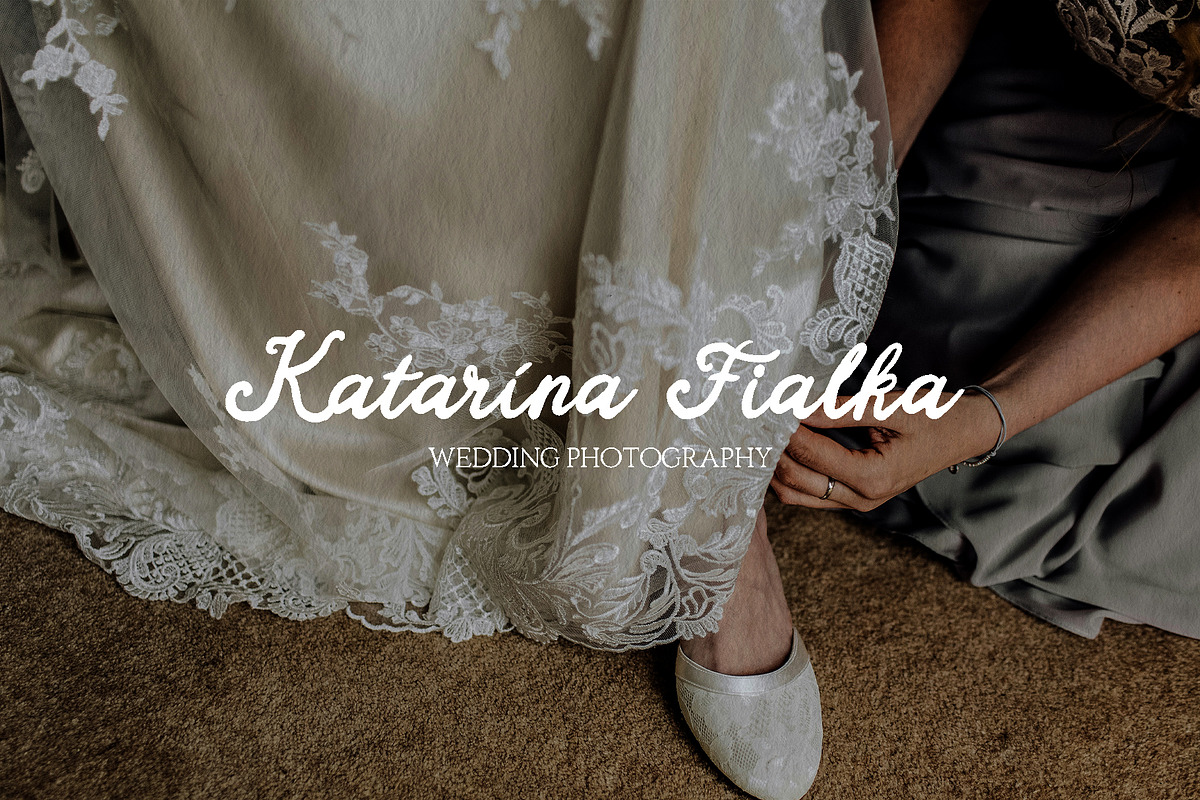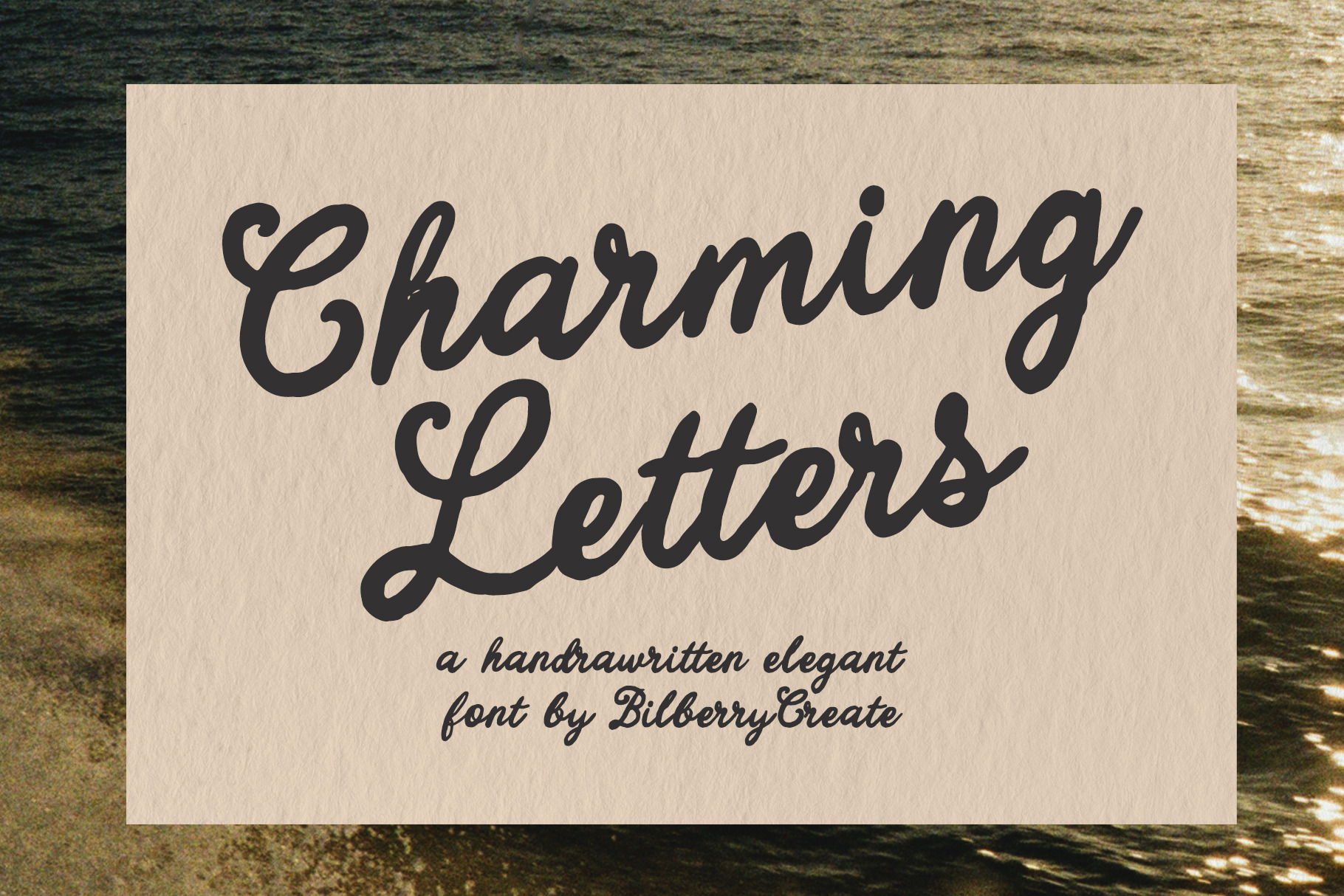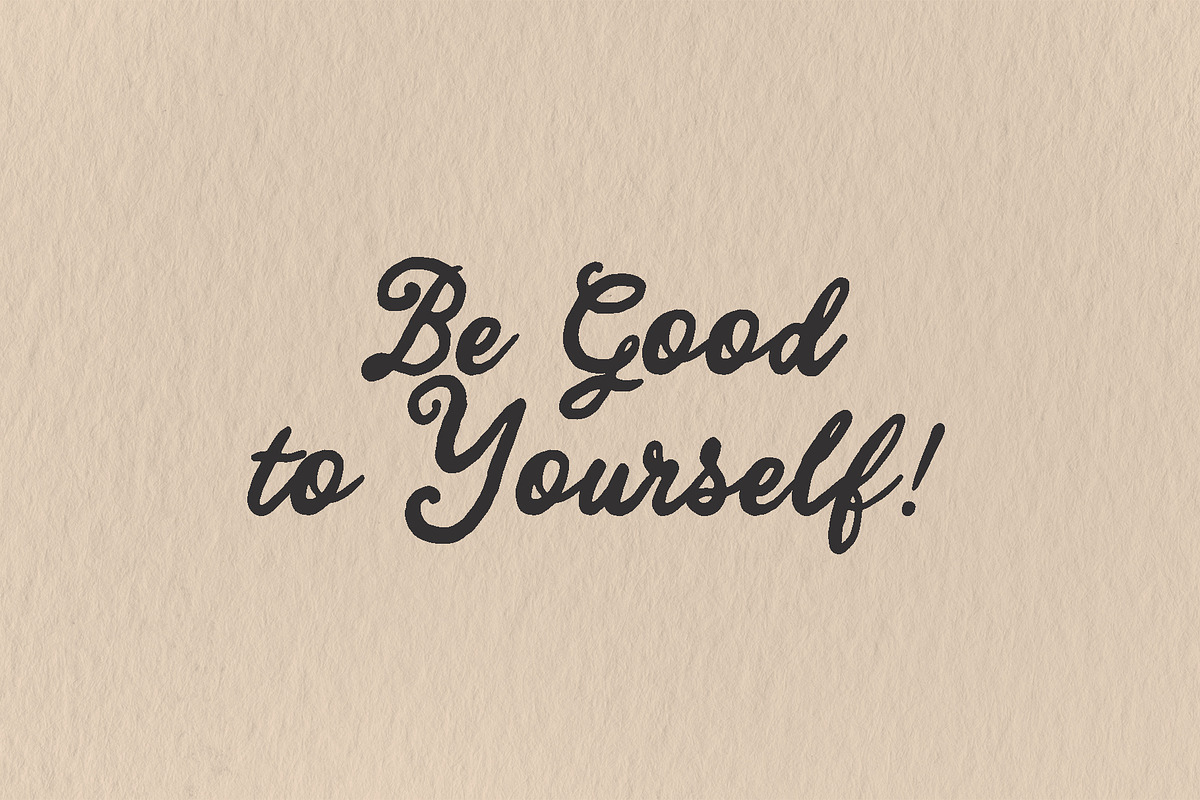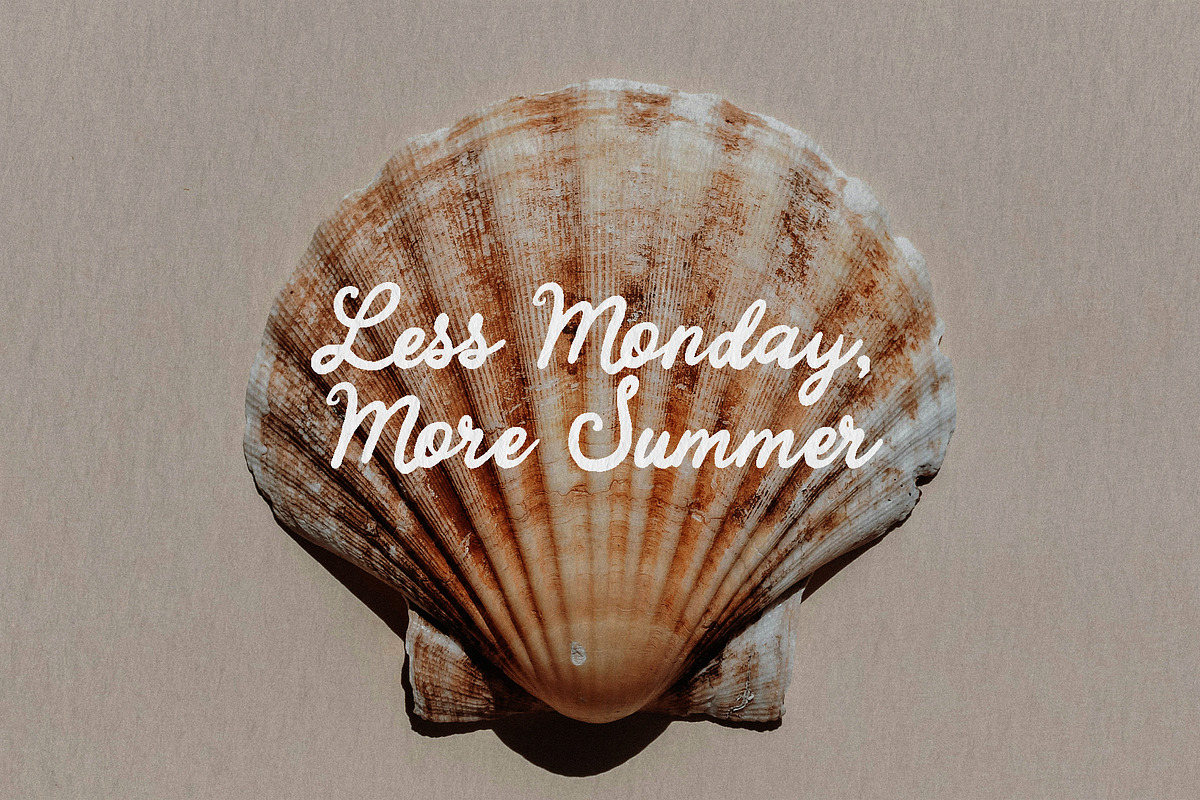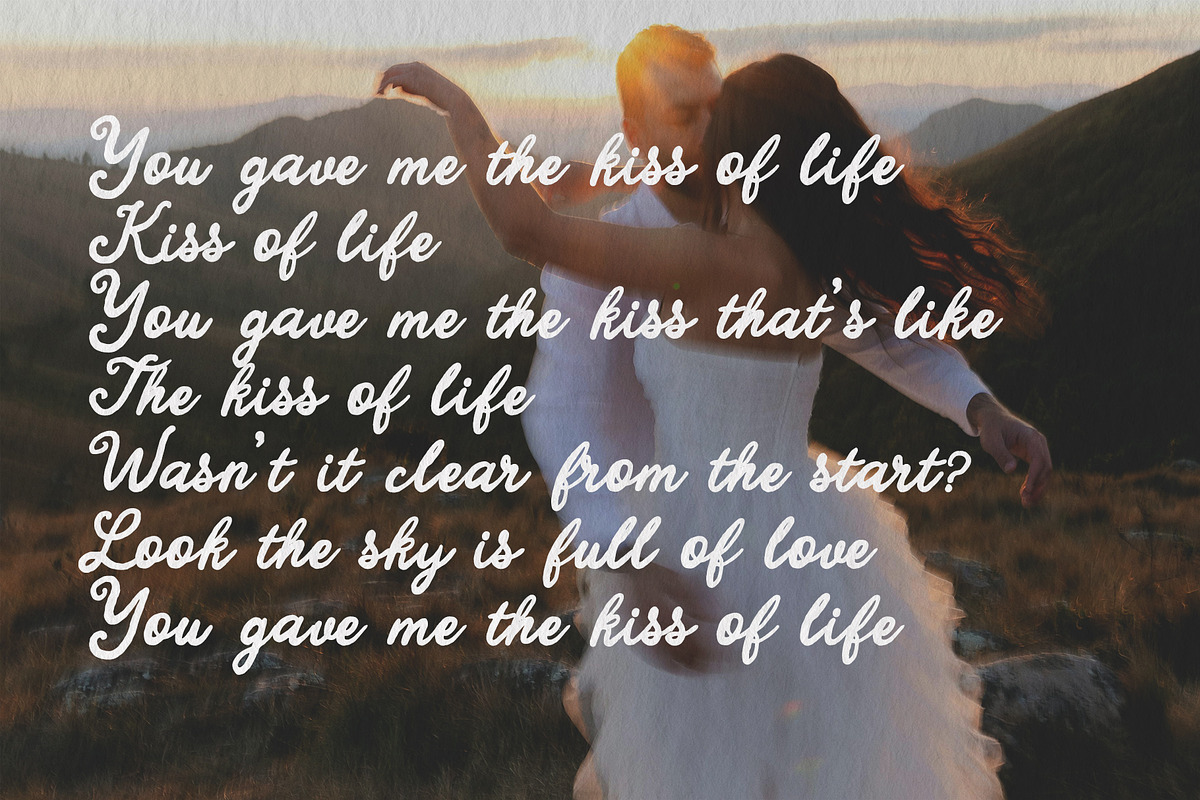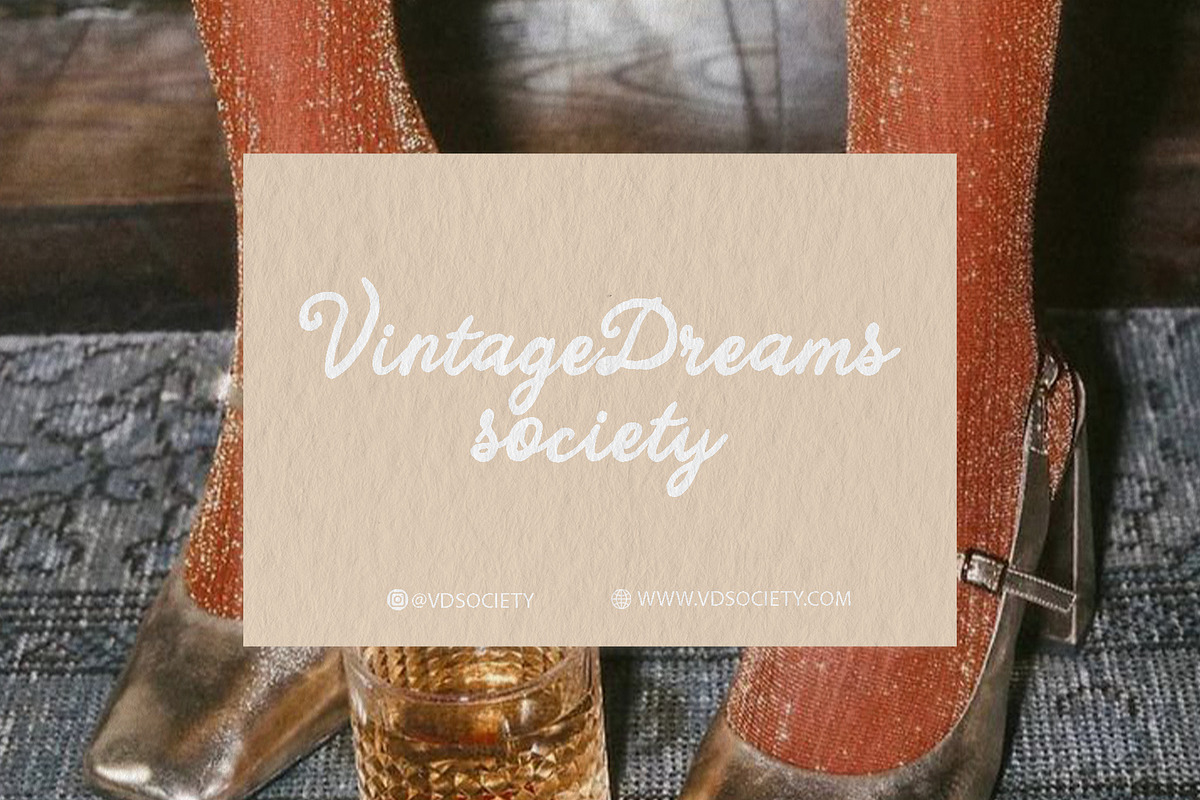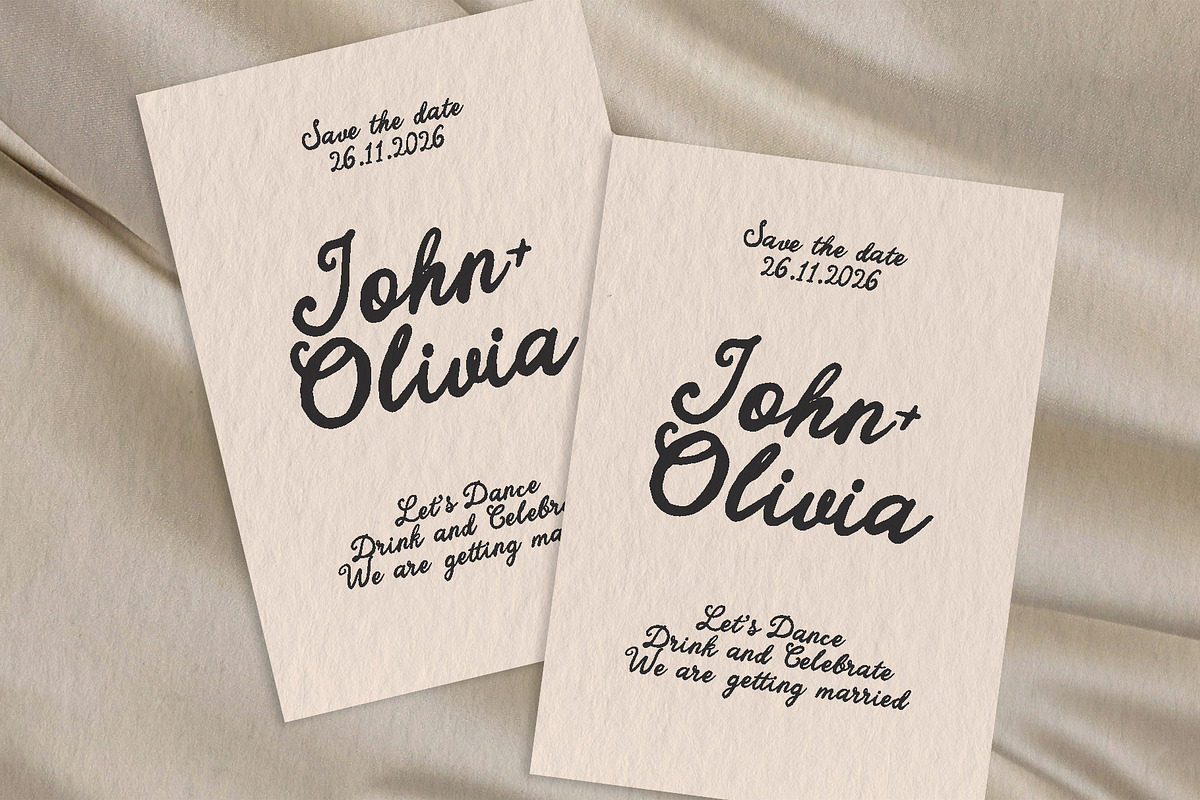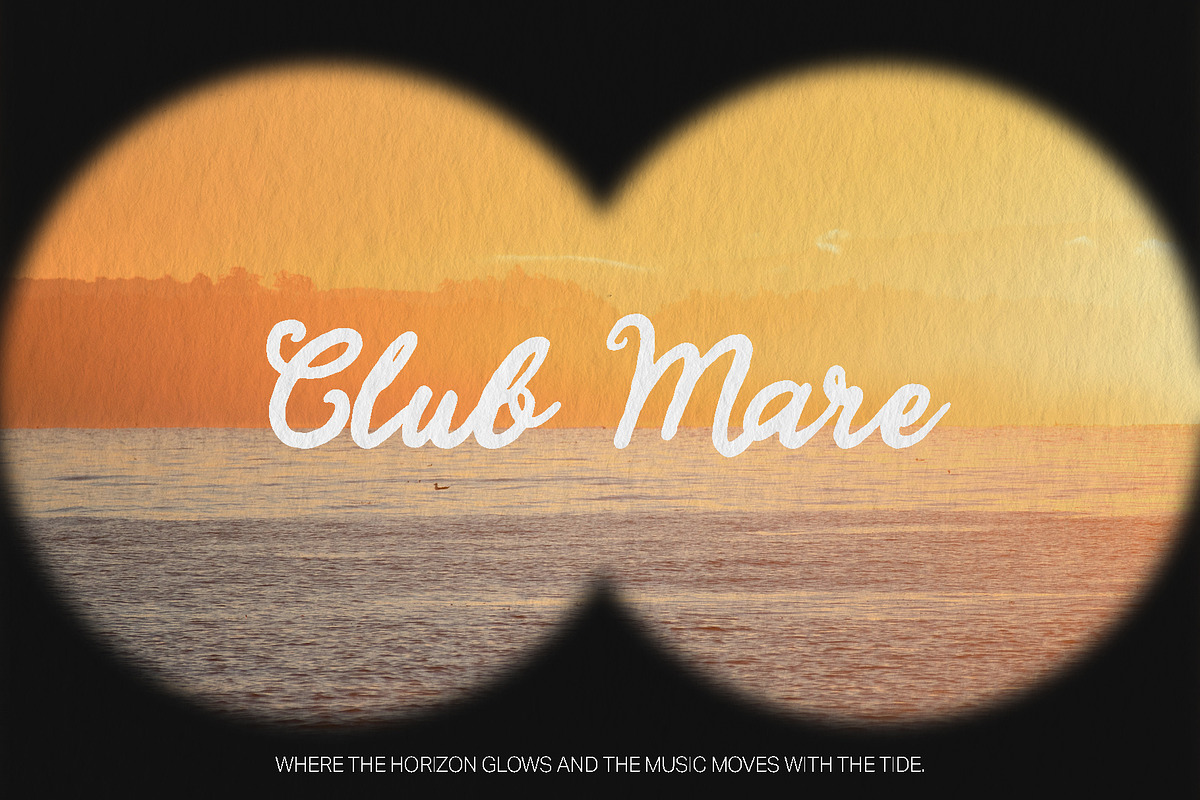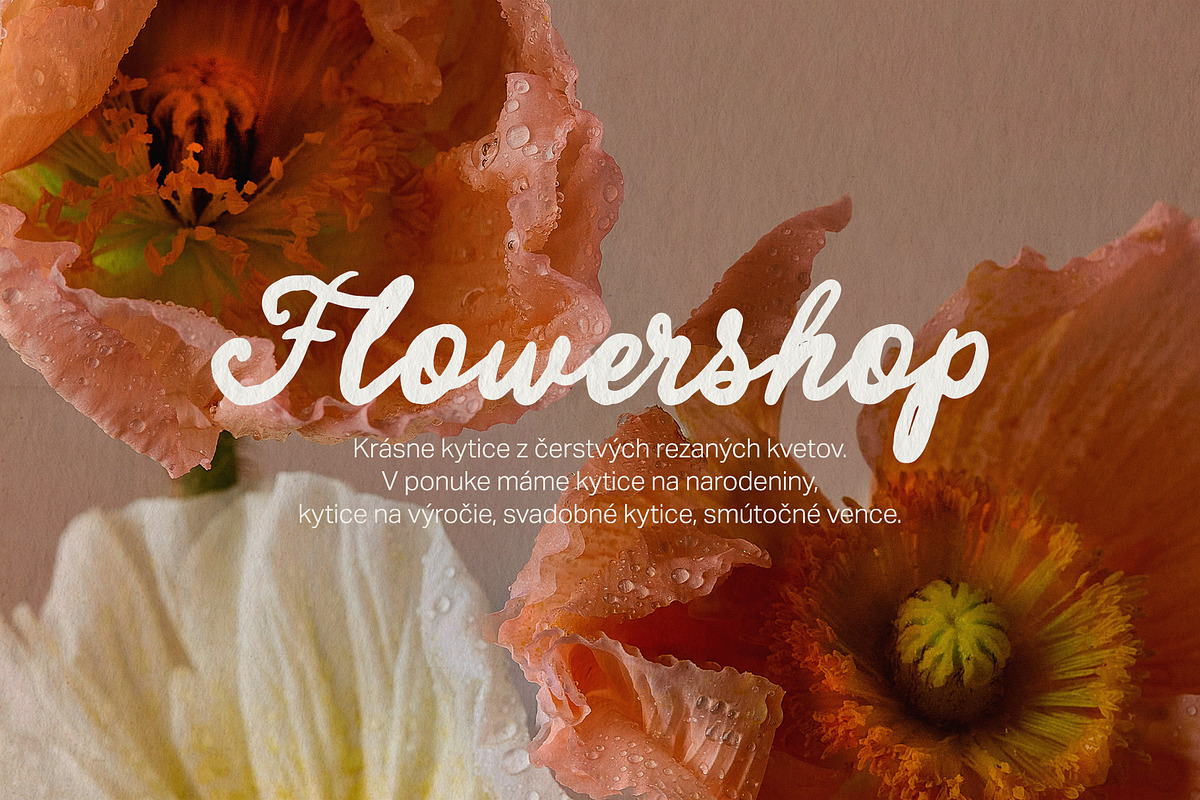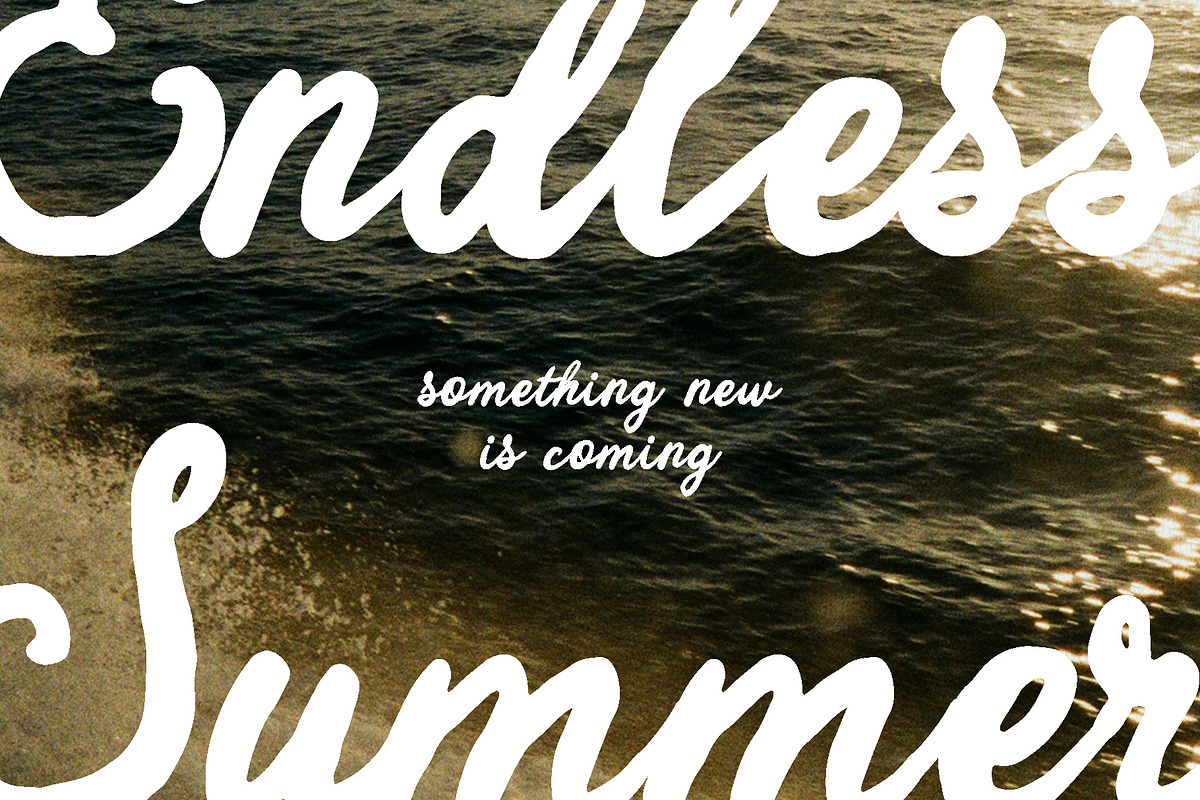
Charming Letters – Elegant Font
Charming Letters is a warm, expressive handwritten script designed to feel natural, confident, and easy to use. It combines smooth curves with bold, steady strokes, creating a balanced look that feels personal without becoming messy or overly decorative.
The font works beautifully for branding, packaging, logos, social media graphics, invitations, quotes, and lifestyle designs. Its flowing rhythm makes longer words readable while still keeping that handcrafted charm.
Charming Letters includes multilingual support, making it suitable for a wide range of Latin-based languages. Every character is carefully crafted to maintain consistency while preserving a genuine handwritten feel.
Charming Letters Font Features:
- Full Set of standard alphabet and punctuation
- Multilingual Characters AÁĂÂÄÀĀĄÅÃÆBCĆČÇĊDÐĎĐEÉĚÊËĖÈĒĘẼFGĞĢĠḠHĦIIJÍÎÏİÌĪĮĨJKĶLĹĽĻŁMNŃŇŅÑ OÓÔÖÒŐŌØÕŒPÞQRŔŘŖSŚŠŞȘẞTŤŢȚUÚÛÜÙŰŪŲŮŨVWẂŴẄẀXYÝŶŸỲỸZŹŽŻ aáăâäàāąåãæbcćčçċdðďđeéěêëėèēęẽfgğģġḡhħiıíîïìijīįĩjȷkķlĺľļłmnńňņñoóôöòőōøõœpþ qrŕřŗsśšşșßtťţțuúûüùűūųůũvwẃŵẅẁxyýŷÿỳỹzźžż
If you’re looking for a script that feels elegant, modern, and effortlessly charming - this one was made for you.